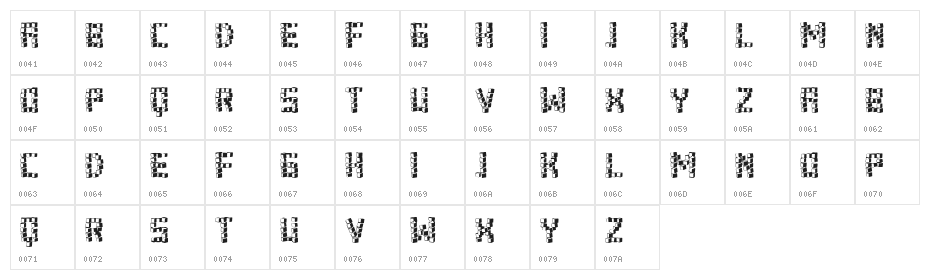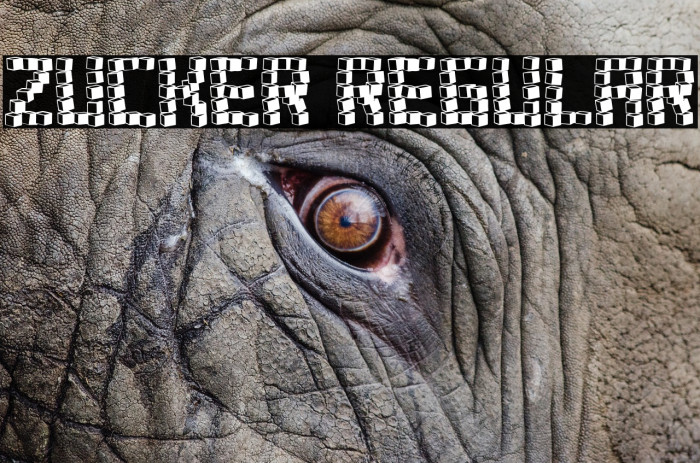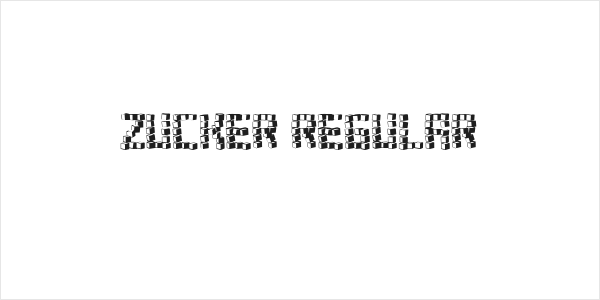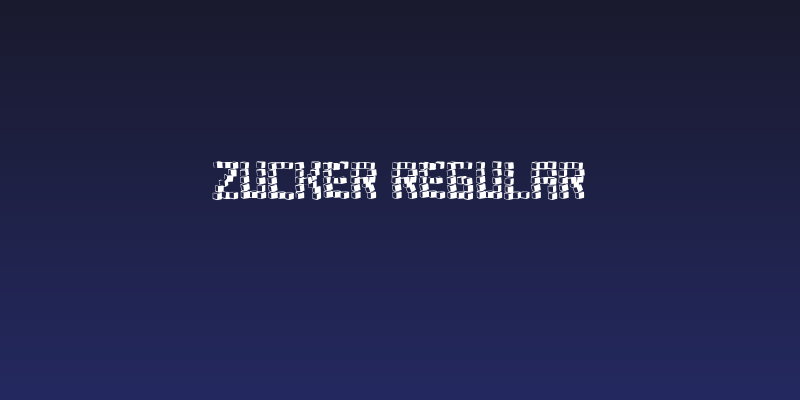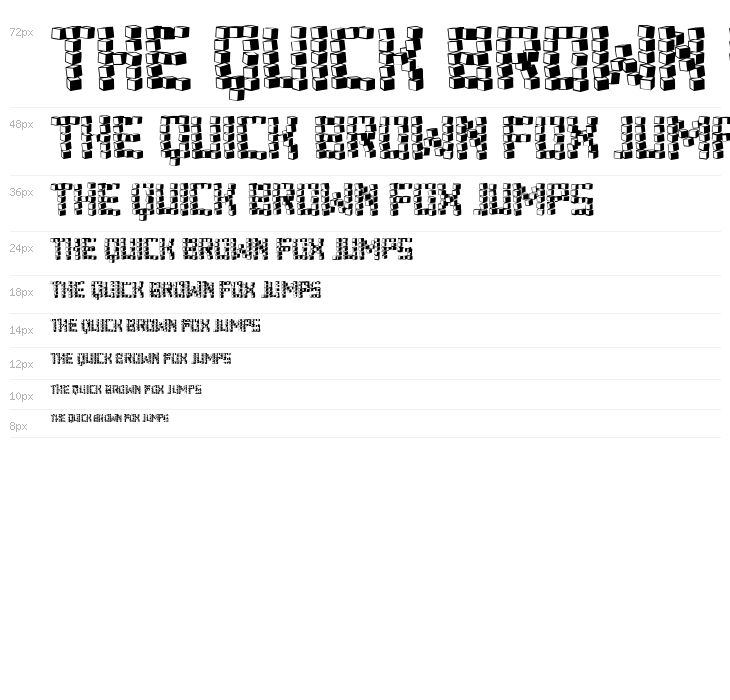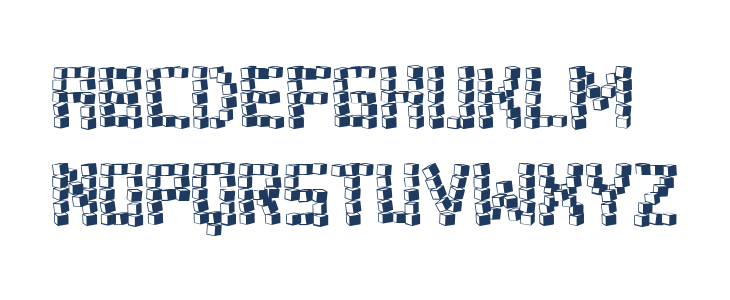
Zucker Regular Font
Zucker Regular Description
This font features a unique 3D block design, giving each character a distinct, playful appearance. The letters are constructed with a cube-like structure, creating a sense of depth and dimension. The bold, geometric shapes are consistent across both uppercase and lowercase letters, as well as numbers and special characters. This style is eye-catching and ideal for projects that require a fun, modern twist. The font maintains a uniform width and spacing, ensuring readability despite its decorative nature.
| Proposed Projects | Ideal for posters, children's book covers, video game graphics, and creative branding projects. |